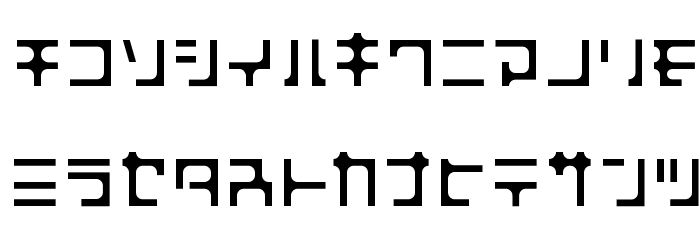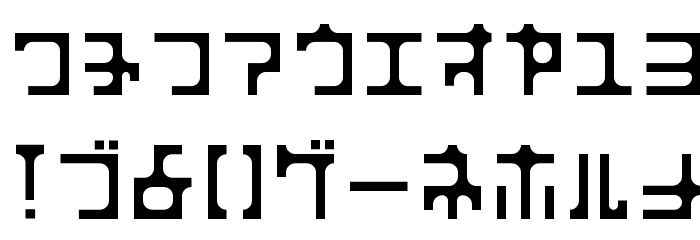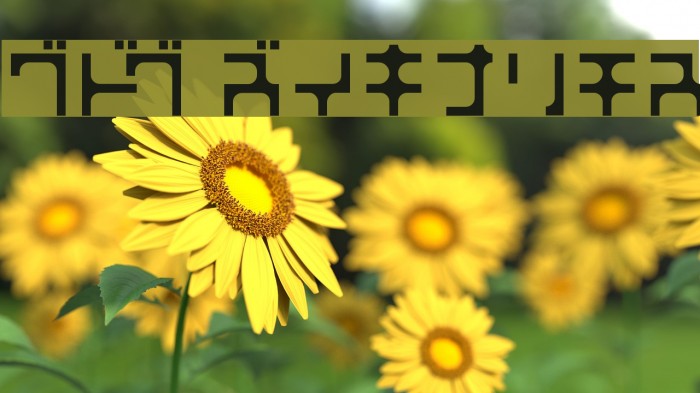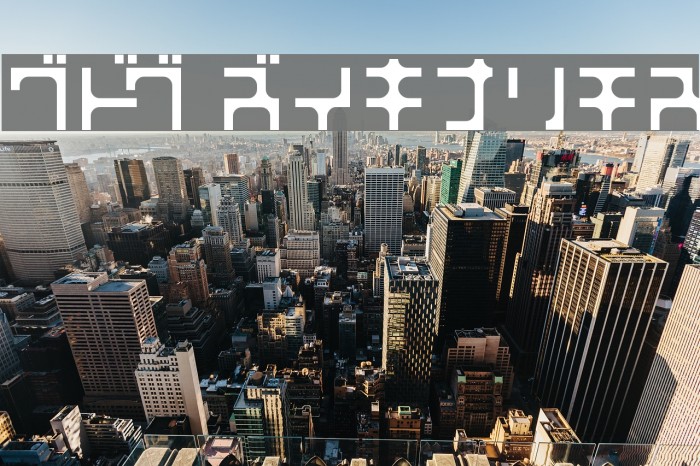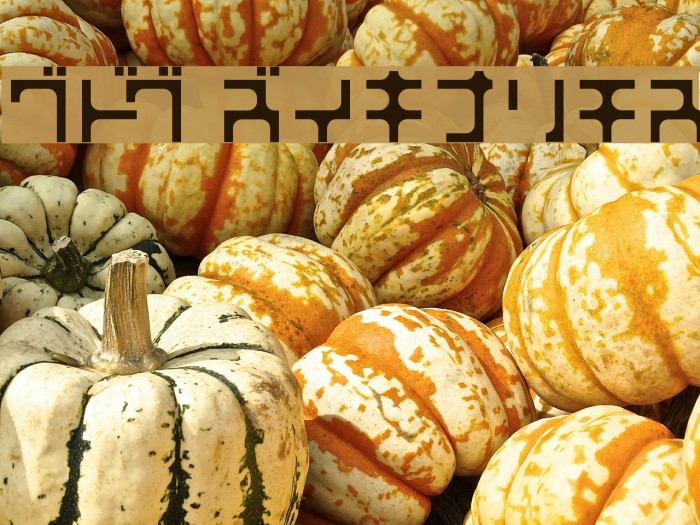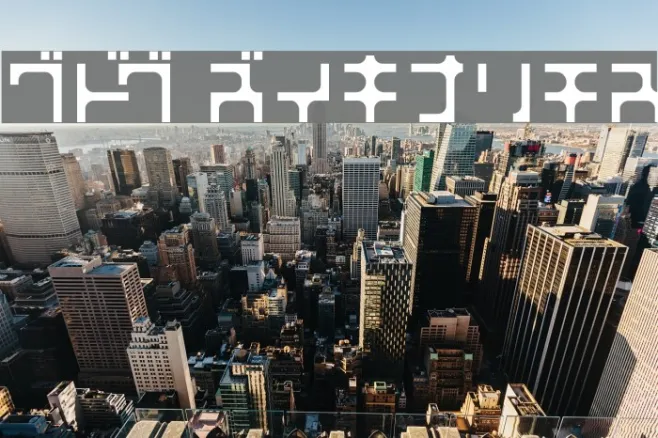
HOSHI RegularJ Font
This font features a bold and geometric design, characterized by its block-like structure and angular forms. The characters are uniformly thick, giving it a strong presence and making it highly legible. The style is reminiscent of digital or futuristic aesthetics, with a modern twist that incorporates sharp edges and clean lines. The uniformity in stroke width across all characters adds to its cohesive look, making it suitable for attention-grabbing headlines or titles. Its unique design elements make it stand out, offering a distinct visual appeal that is both contemporary and stylish.
A bold, geometric font with a modern, digital aesthetic.
- Proposed Projects: Ideal for tech-related branding, futuristic posters, digital media, and video game interfaces.